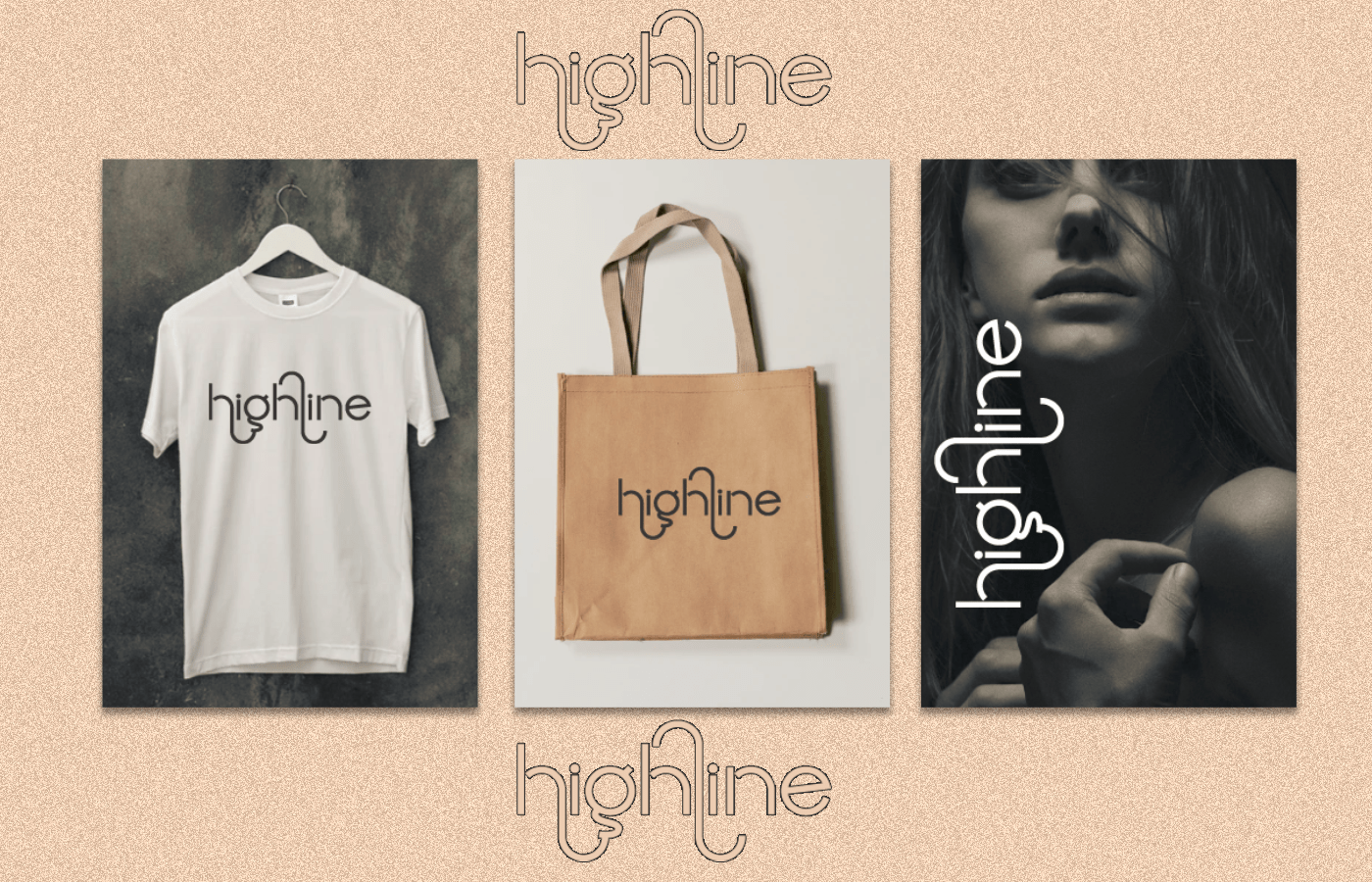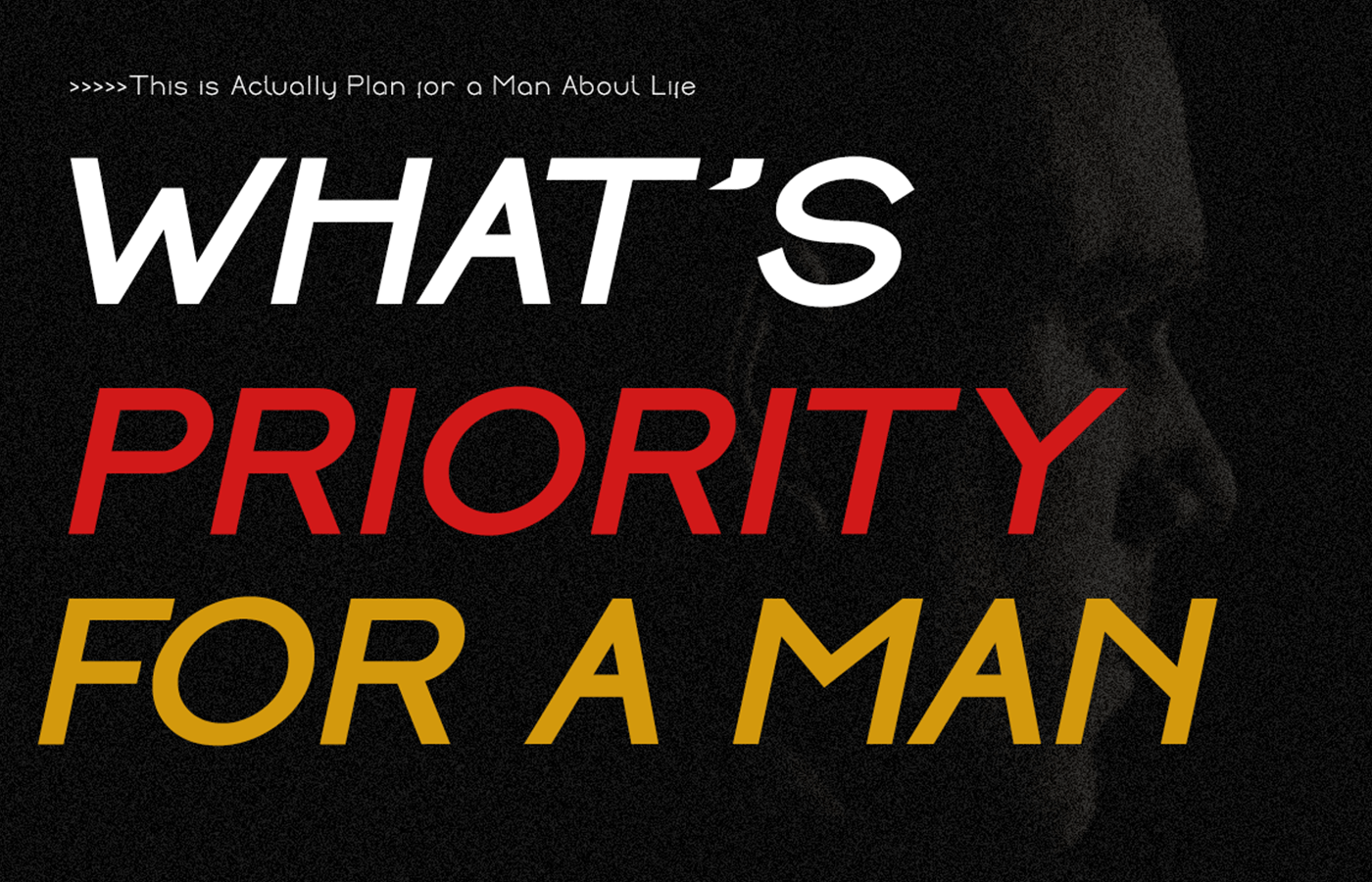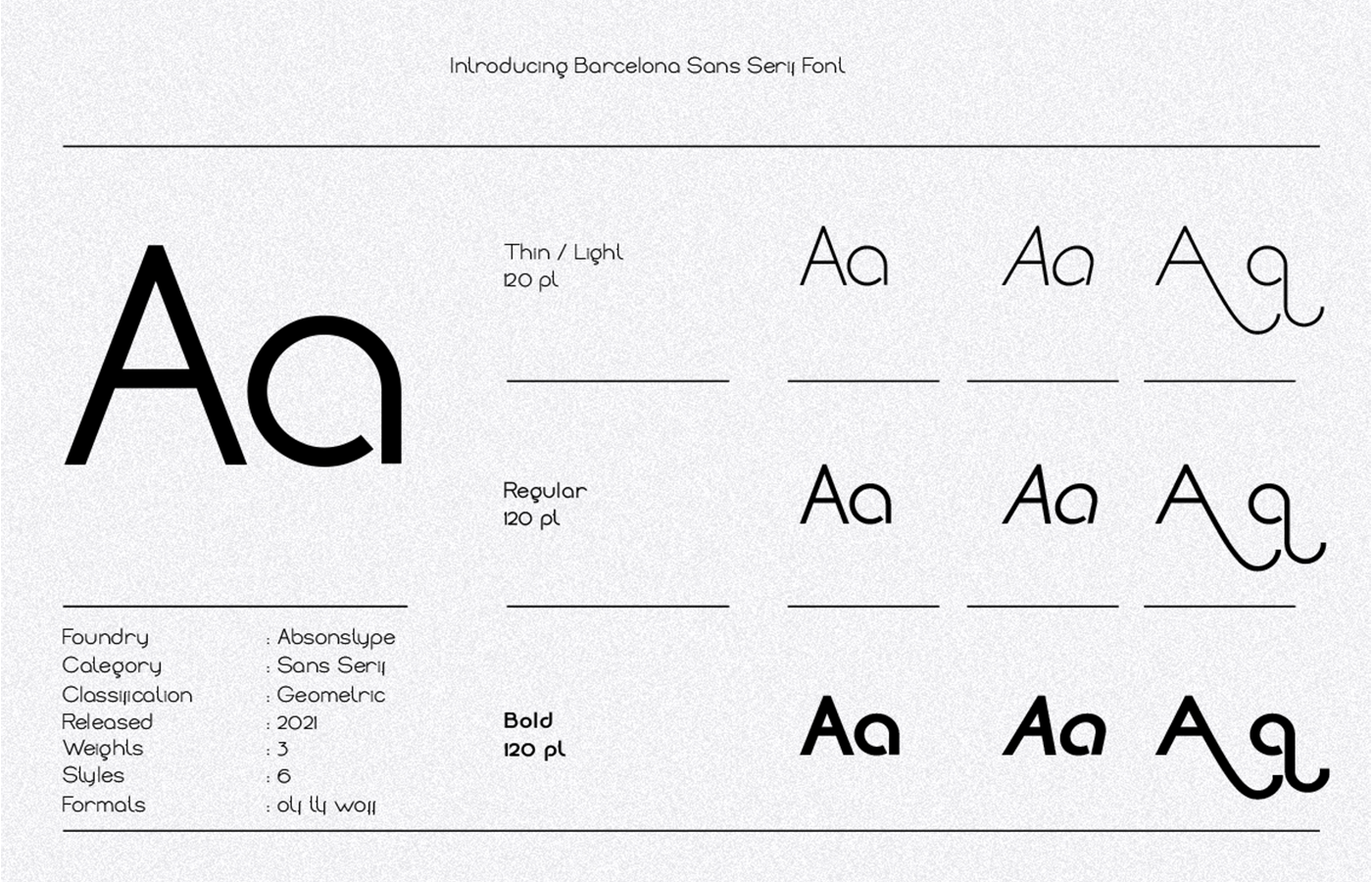
Barcelona Font
Barcelona Font is the geometric sans serif style with uppercase and lowercase looks and feel nice balanced. Provide alternates font in uppercase and lowercase variant style make the design letter looks nice. Honestly it works perfectly for headlines, logos, posters, packaging, T-shirts and much more.